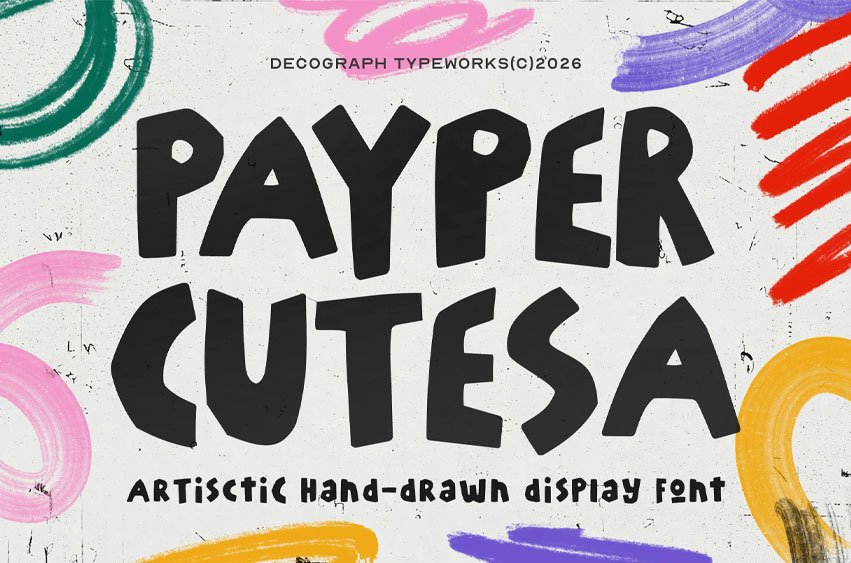
Payper Cutesa Font is a bold artistic display font featuring playful hand-drawn letterforms, quirky proportions, and an expressive handcrafted rhythm.
Its irregular organic shapes create a charming and energetic personality that instantly adds fun, warmth, and creativity to any design project.
Best Used For:
- Poster Design
- Kids Branding
- Creative Packaging
- Book Covers
- Social Media Graphics
- Merchandise Design
- Event Promotions
- Headline Typography